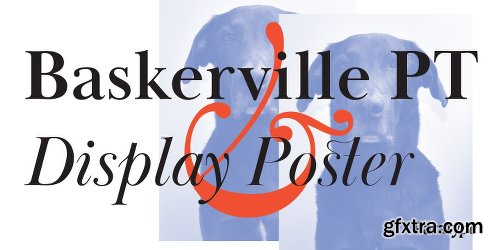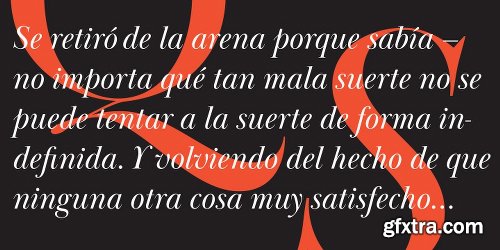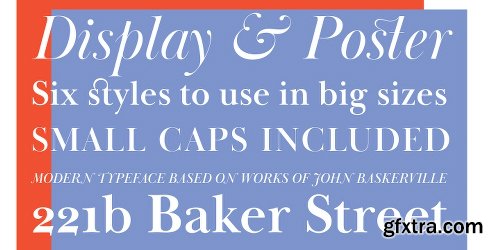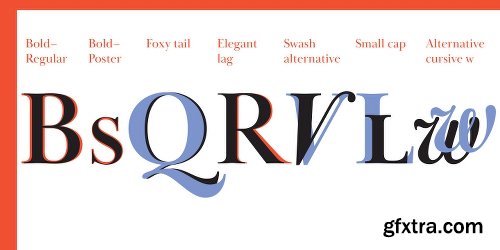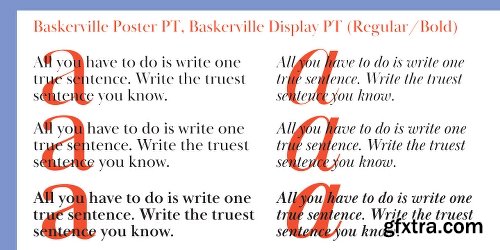
Baskerville Display PT Font Family 6 Fonts
Baskerville Display PT is a type family intended for large and extra large point sizes. It was inspired by the faces of John Baskerville and designed for expressive display typography. Two weights of Baskerville Display with matching italics are much lighter than the existing text versions of Baskerville. Each of them is an ideal partner for ITC New Baskerville. A good addition to the family is Baskerville Poster which will look great in very large sizes. The font was designed by Arina Alaferdova under the supervision of Dmitry Kirsanov and released by ParaType in 2016.